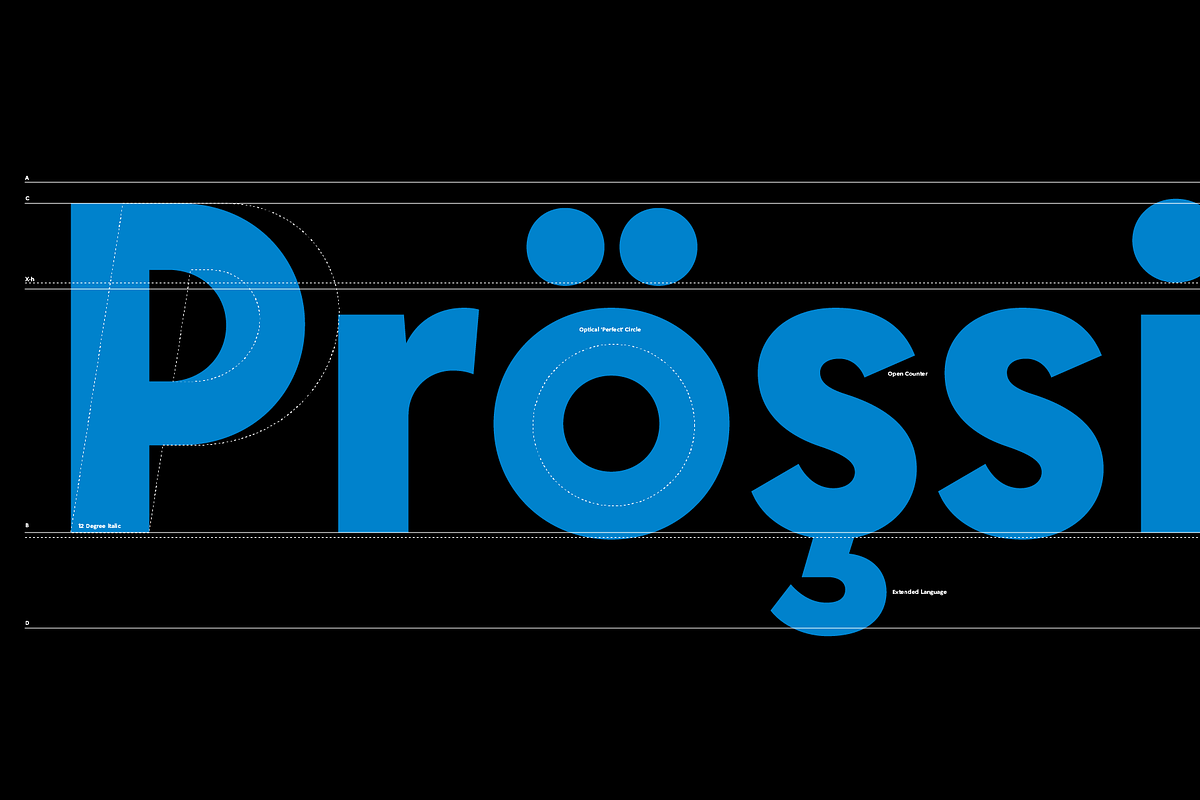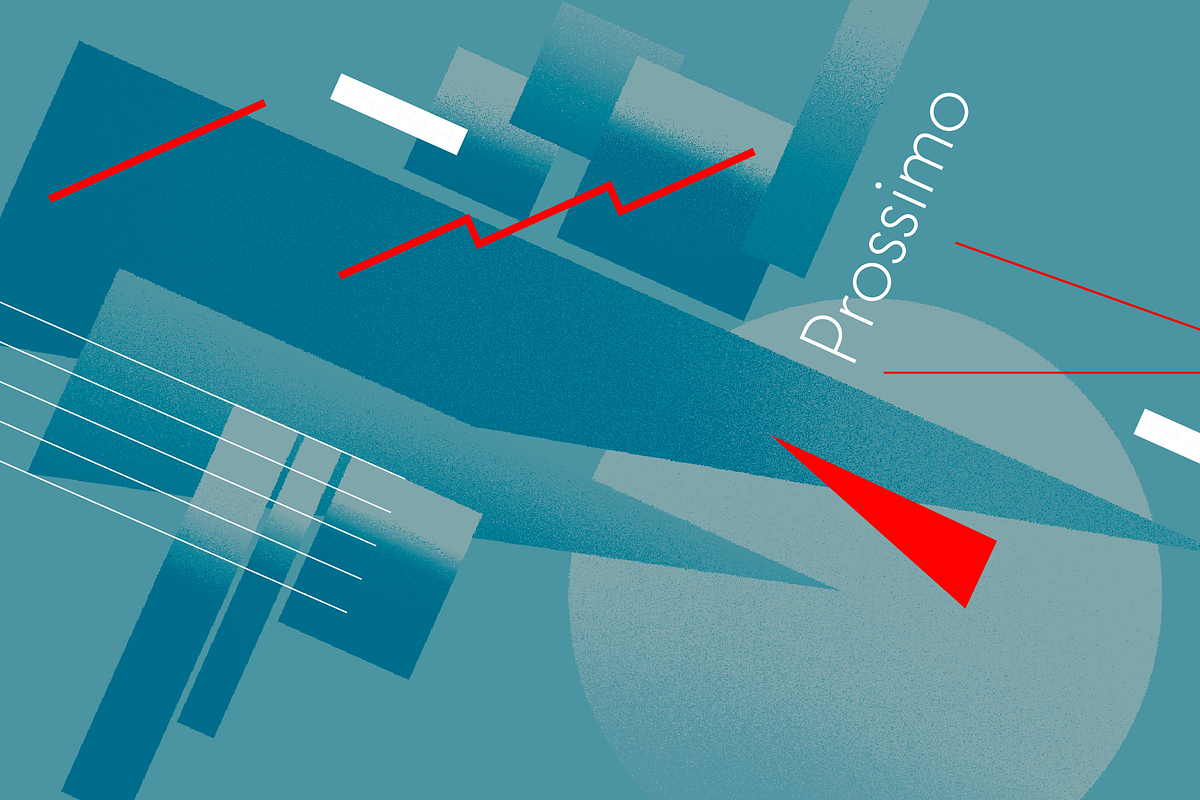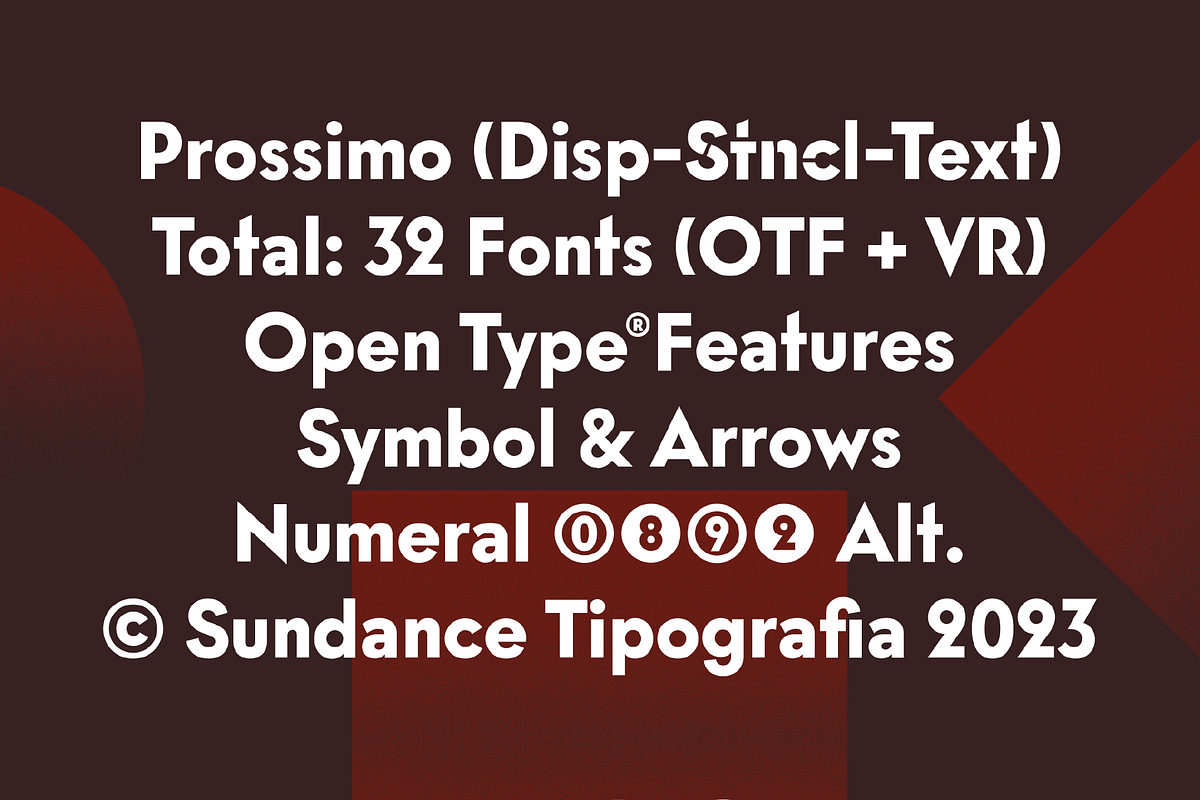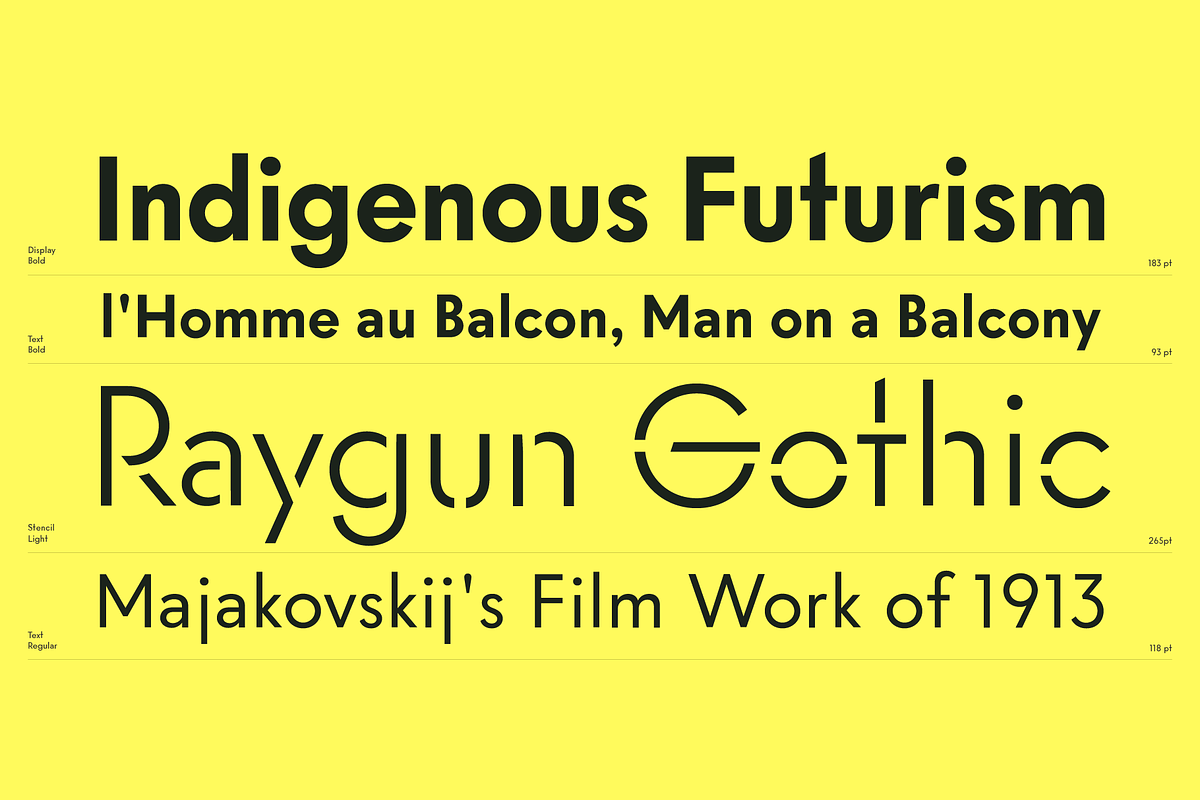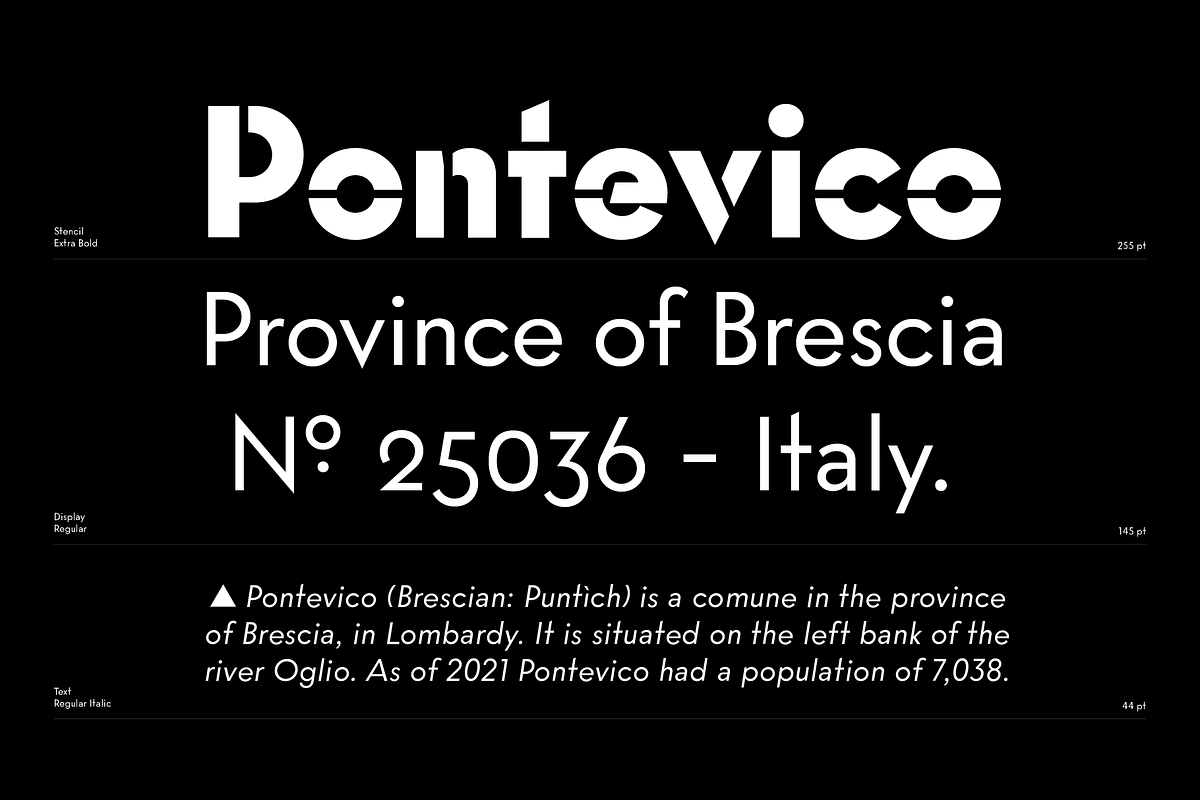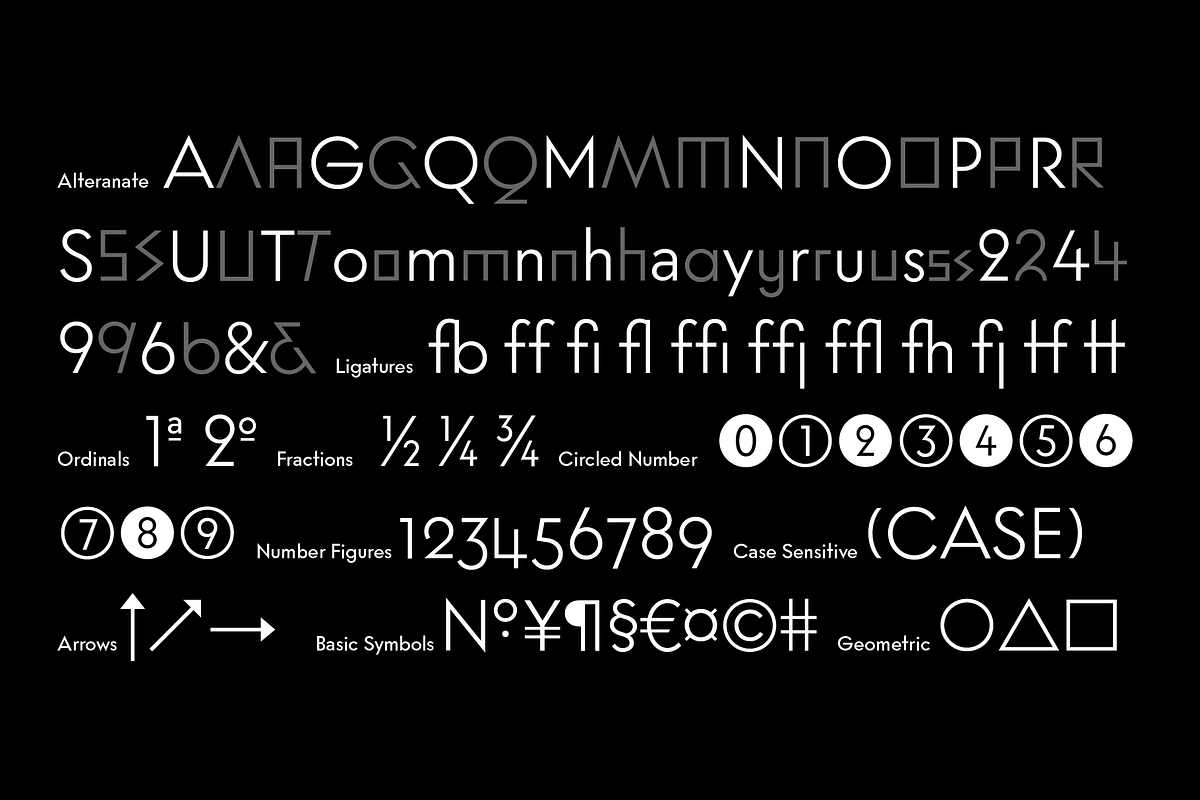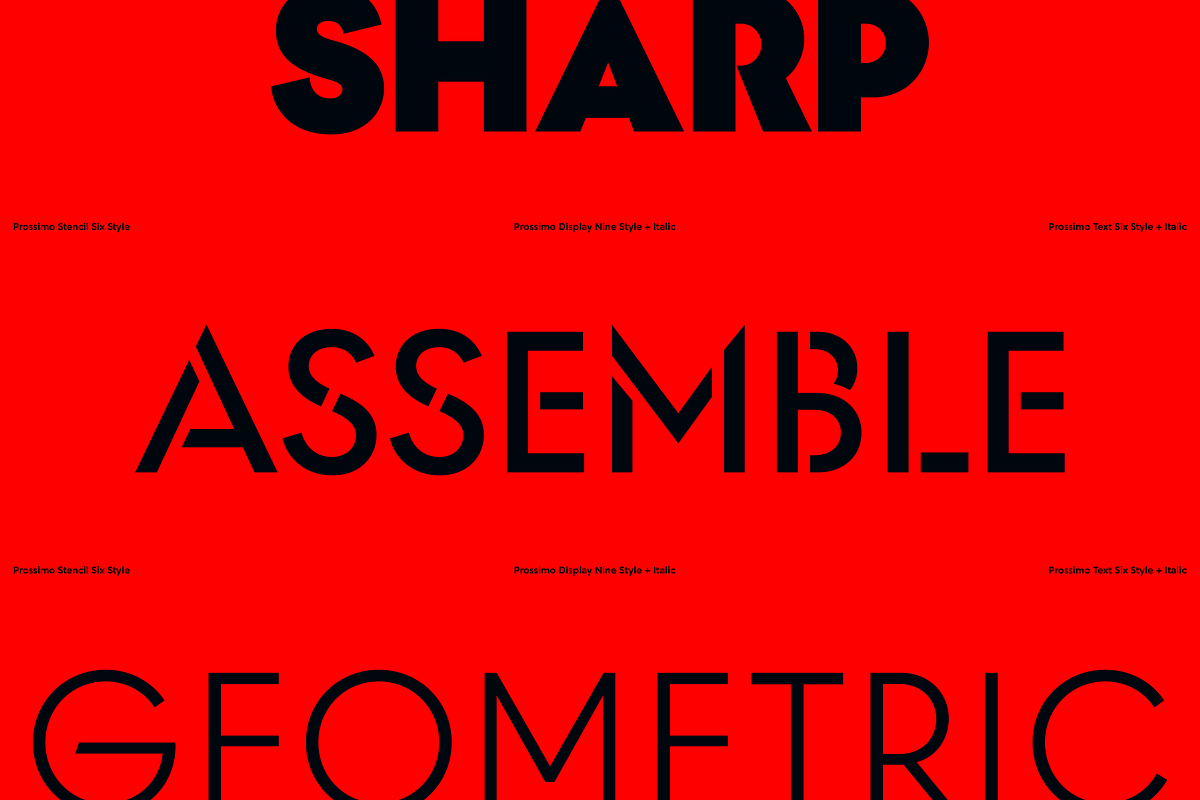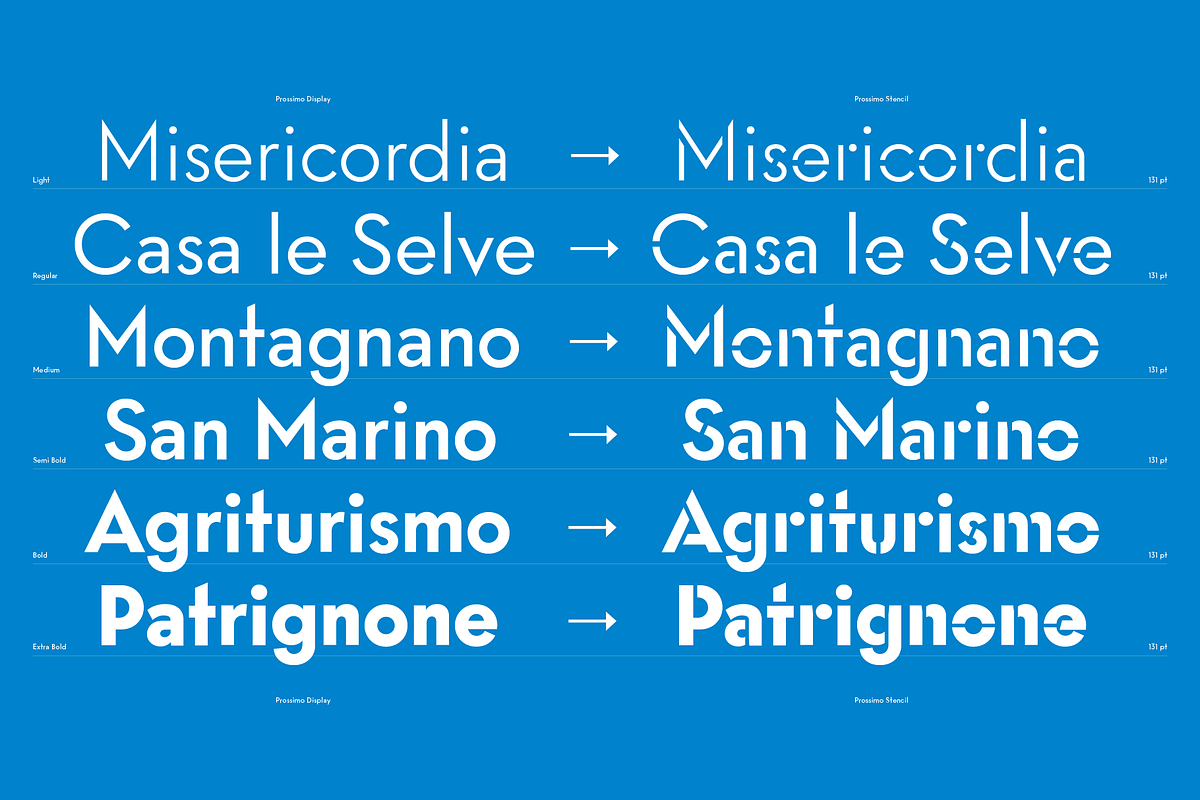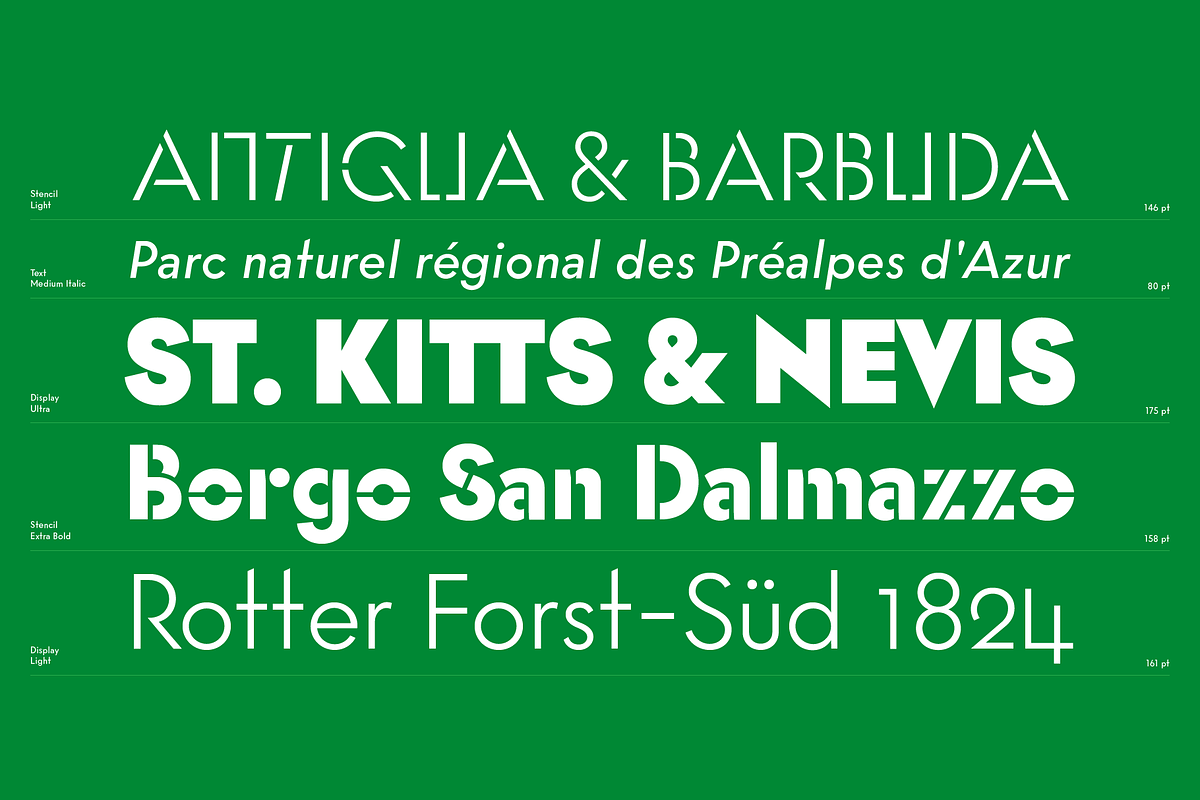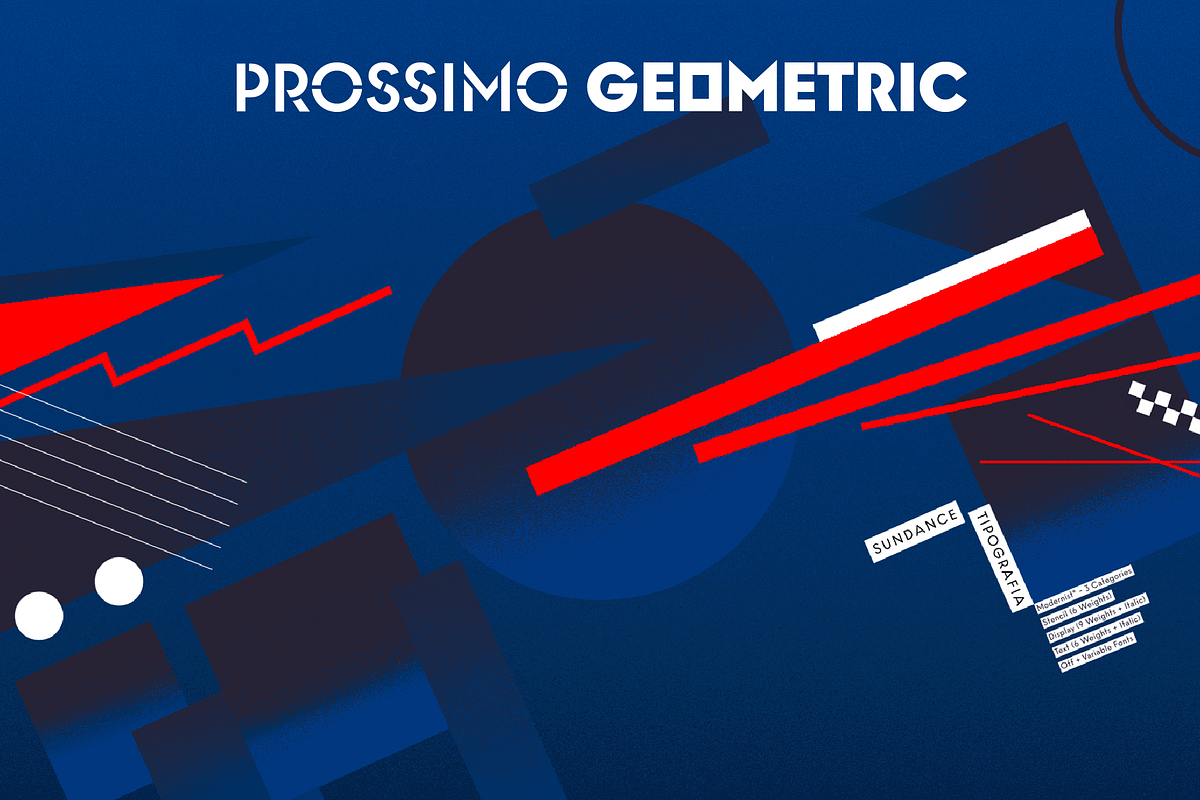
This font is strongly inspired by the Futurism (Futurismo) movement in the early 20th century; with its simple shapes and strong structure, this font can be used to give a contemporary look to any design.
Available in 3 styles (Display, Stencil, Text), this font is great for logos, headlines, posters, and UI/UX design. It can be used in various design applications such as print or web.
Available in 3 Categories; Display (9 Weights + Italics), Stencil (6 Weights), and Text (6 Weights + Italics). and support more 150+ Language (Latin Pro Script)